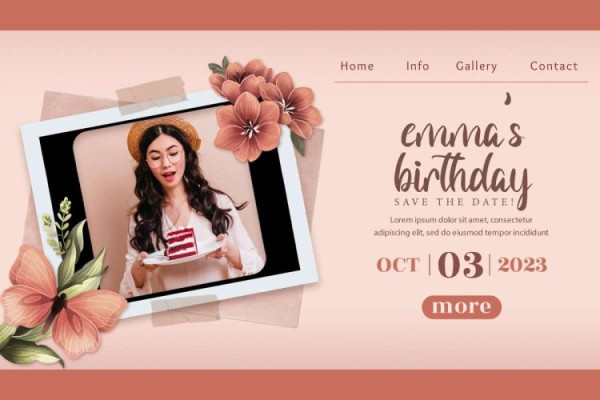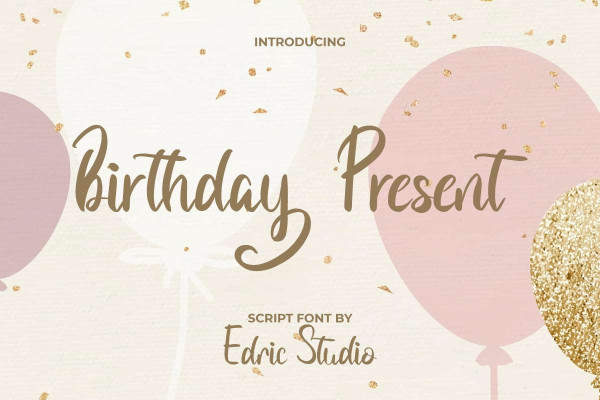
Birthday Present Font is a cheerful yet simple hand brush script font with birthday party theme. One glance at this typography can make you remember the beauty of the most precious celebration in your life. This font has been refined so that it fits any industry, such as accessories, bakery, party equipment store, cake shop, cosmetic, craft, event organizer, furniture, gift store, homeware, interior designers, printing, publishing, restaurant, skincare, spa, and many more.
Birthday Present Font comes with a full set of Uppercase and Lowercase Basic Characters, Number, a large range of Punctuation and Symbol. It has a stunning characters set, perfectly managed with well spaced and kerning. Birthday Present Font will be great for any projects (with extended license) including : brand logo, brochure, cover, gift wrap, greeting card, invitation, label, menu, product packaging, quote, signage, stationery, sticker, title, watermark, website, etc.
Birthday Present Font also has Alternate characters options that you can choose and use to make it perfectly and stand out. To use alternative characters, usually we just need to block the end letters and select alternative letters on glyphs option. Ready to use both on Windows machine or Mac with simple installations with multilingual characters supported. It’s tested to work well in the Adobe Apps (Illustrator, Adobe InDesign, Adobe Photoshop) even work on Microsoft Word. PUA Encode Characters means you can access all characters easily – Fully accessible without additional design software.